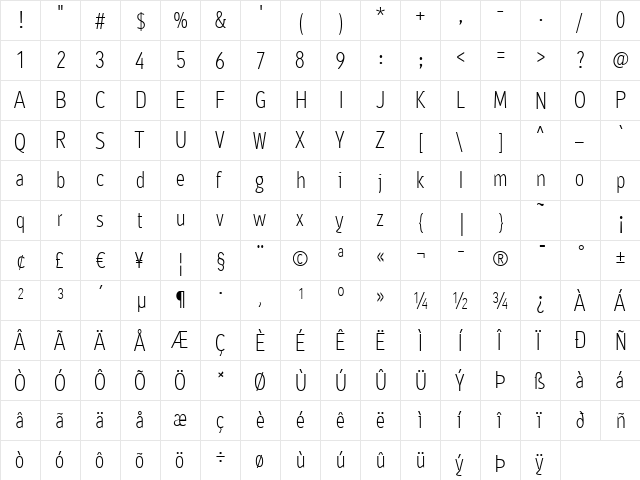
Ayumi Light Regular
Design Context for Ayumi Light Typeface
Ayumi Light offers clean, dependable letterforms without strong stylistic allegiance, making it a practical choice for designers who need flexibility. Its slender proportions lend an understated elegance to any composition.
Pro Tip: Use Ayumi Light in both headline and body roles to test its range before committing to a single application.